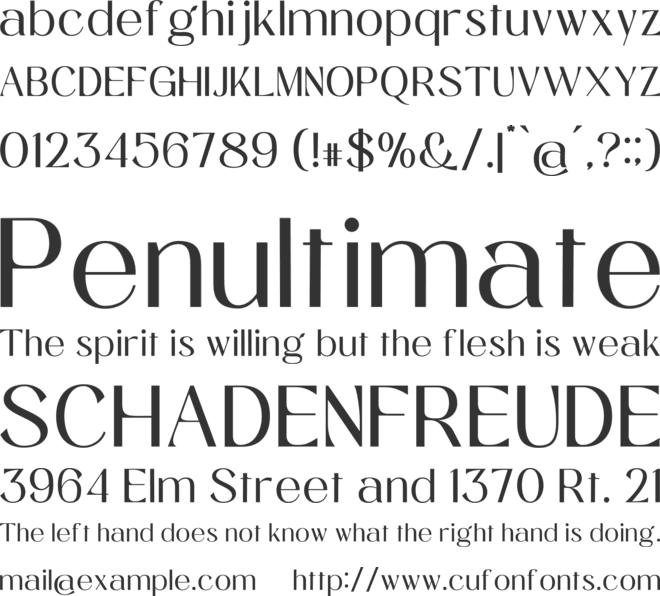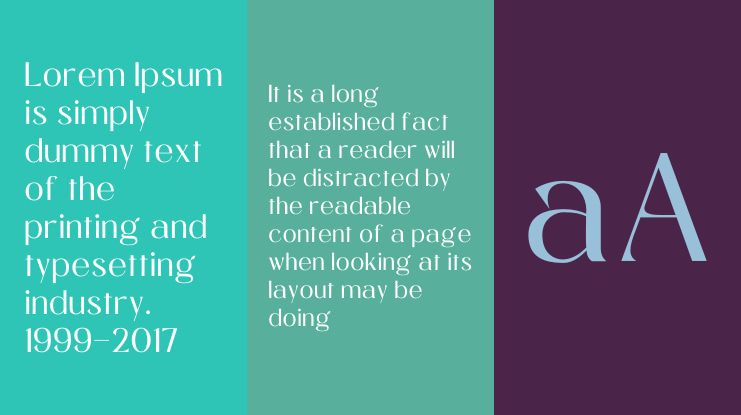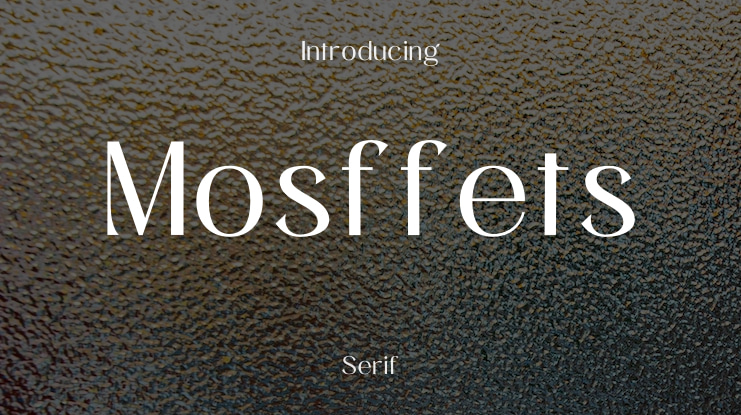
Mosffets Font
Mosffets is a modern and elegant display typeface designed to bring sophistication and creativity to your design projects. Its harmonious ligatures and stylish letterforms make it perfect for designers who value balance and aesthetic beauty.